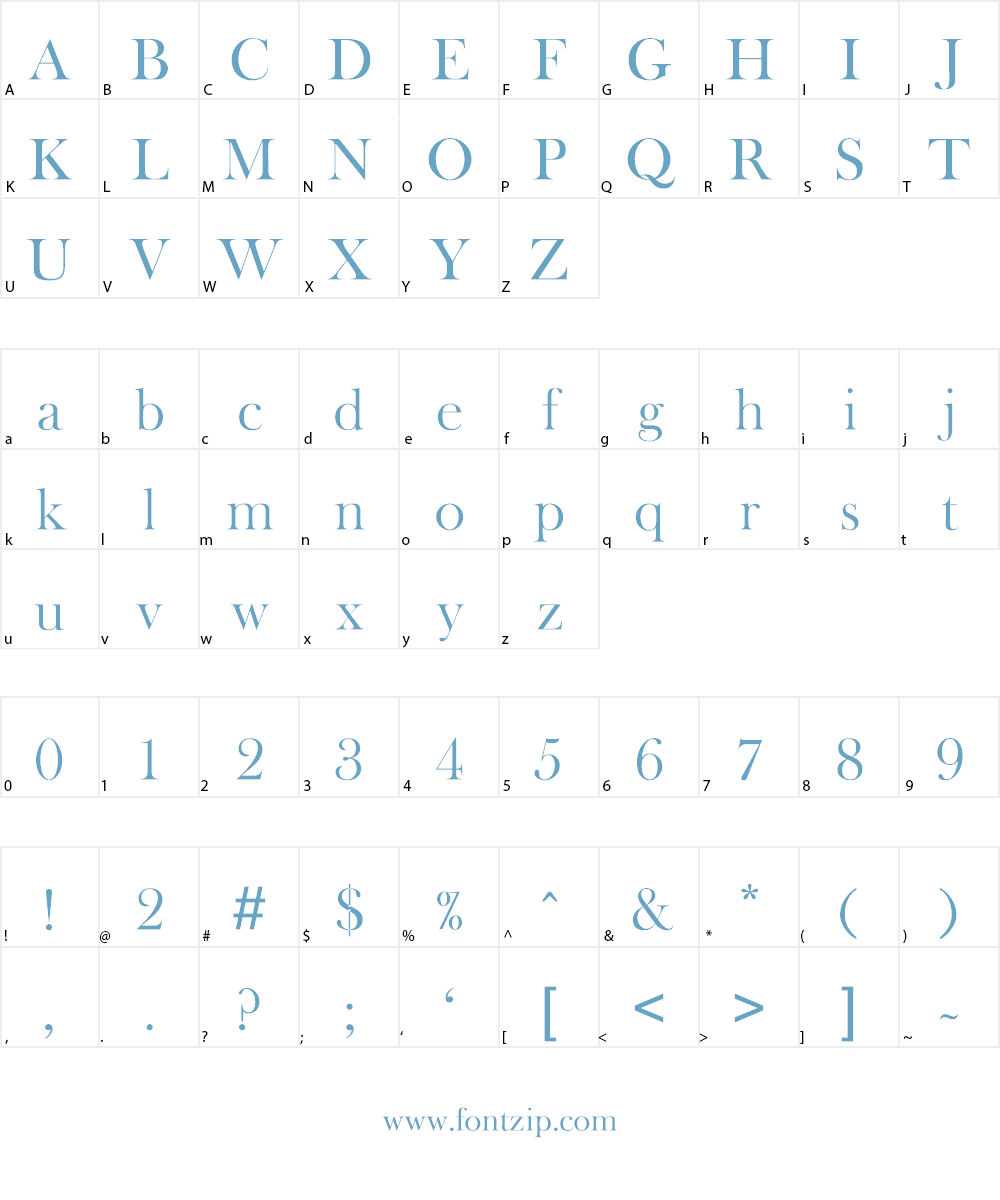
Open Baskerville is an open source project to create a digital revival of the famous ‘Baskerville’ typefaces. To be more exact, Open Baskerville is based upon Fry’s Baskerville, a Baskerville derivative created by Isaac Moore, a punchcutter who worked for John Baskerville